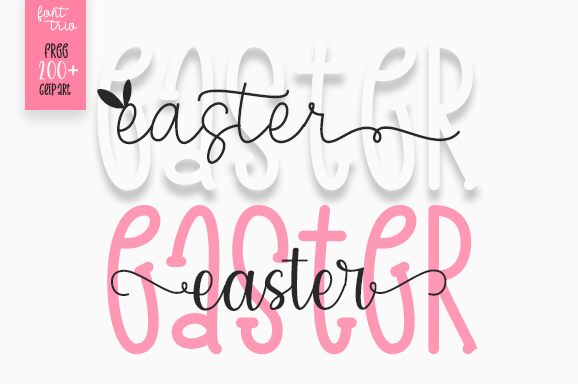
Easter Display
Easter Display is a whimsical and charming handwritten font designed by Fillo Graphic. With its semi-light weight and extra-condensed width, this font is perfect for creating eye-catching headlines, titles, logos, and branding materials. Its unique style adds a playful touch to any project, making it ideal for children's books, greeting cards, posters, and social media graphics. Whether you're designing a cute Easter-themed project or want to add some fun to your designs, Easter Display is the perfect choice. Get creative with this delightful typeface and add some personality to your next project!